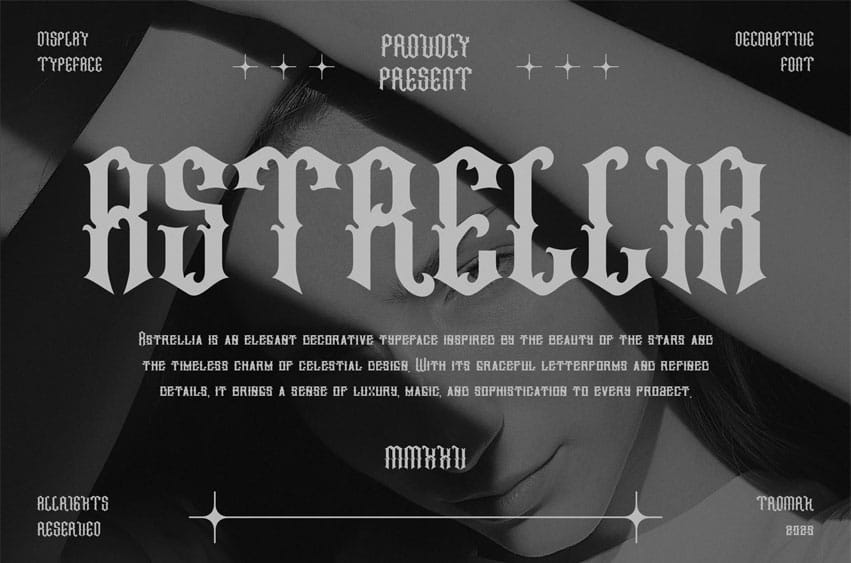
Astrellia Font is an elegant decorative typeface inspired by the beauty of the stars and the timeless charm of celestial design.
With its graceful letterforms and refined details, it brings a sense of luxury, magic, and sophistication to every project.